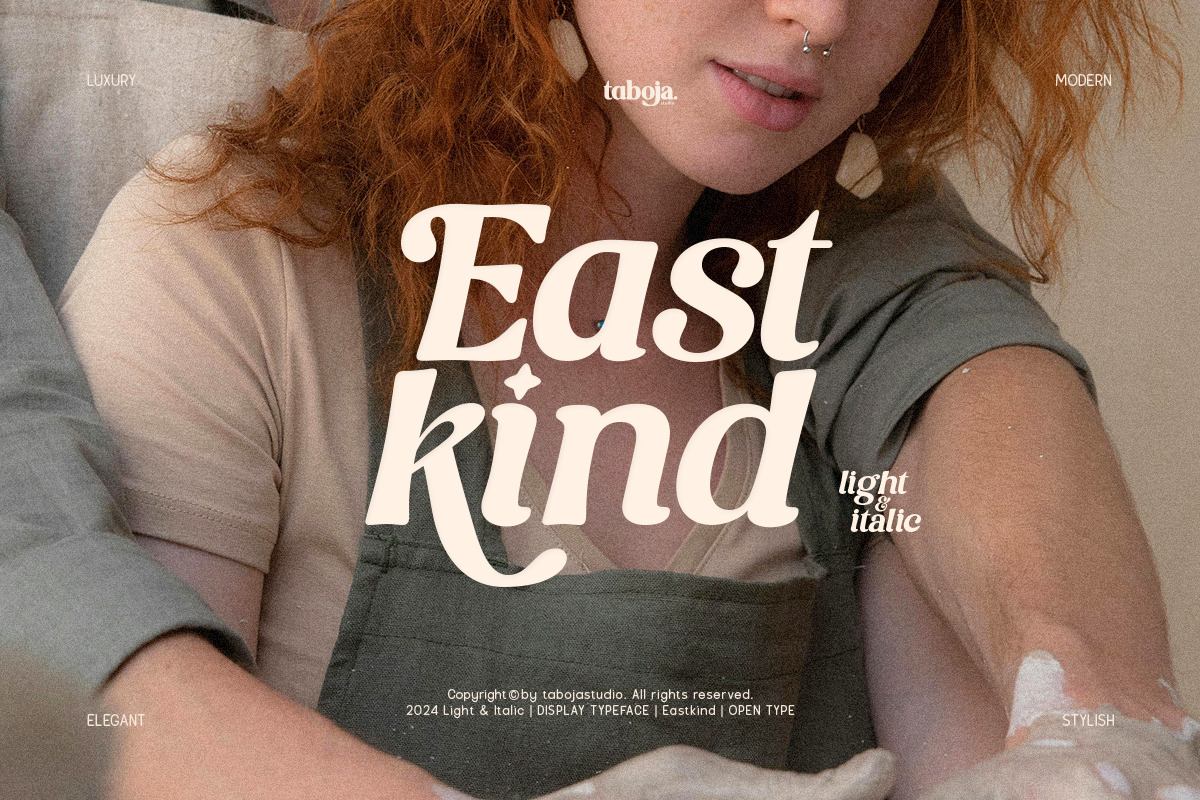
You must purchase this font for commercial use. However, you can download East Kind | Light-Italic Serif Font Free Download for testing purposes. East Kind is a graceful light-italic serif typeface that combines elegance, softness, and sophistication—making it a perfect choice for fashion branding, wedding invitations, editorial layouts, skincare packaging, and stylish social media content.
With its slender letterforms, flowing italics, and classic serif details, East Kind delivers a refined yet approachable tone. The light weight and italic styling add a sense of movement and romance, perfect for designs that aim to feel high-end, poetic, or delicately expressive. Its readability and timeless charm also make it a versatile option for both digital and print projects.